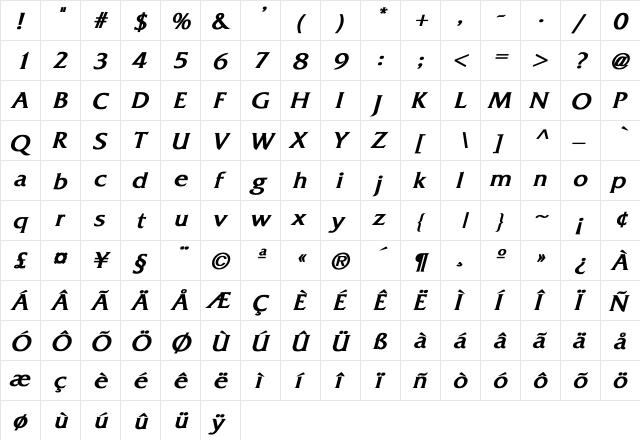
FritzQuadrata Bold Italic
Design Context for FritzQuadrata Typeface
FritzQuadrata is a composed and adaptable typeface that performs quietly and consistently across a wide range of design contexts. Its italic angle brings a sense of urgency and motion to the letterforms. Its bold stroke weight gives it real presence on the page.
Pro Tip: Try FritzQuadrata for annotation and caption copy alongside an upright companion — the contrast in angle creates a dynamic but ordered typographic system.